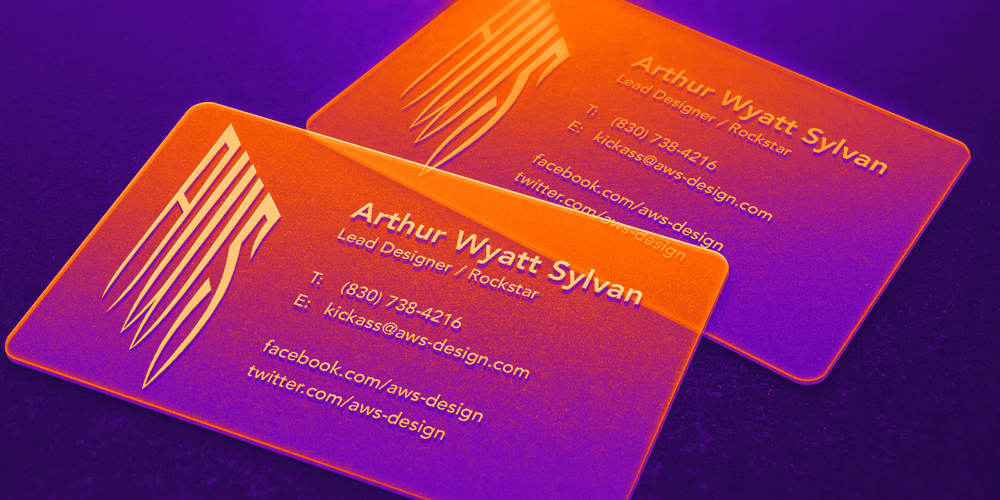
MFC Viper Monogram Font Family was designed by Brian J. Bonislawsky and published by Monogram Fonts Co.. MFC Viper Monogram contains 4 styles and family package options. The inspiration source for Viper Monogram is the 1934 Book of American Types by American Type Founders. Found in that specimen book, was a sophisticated two-color monogram design called Hollywood Combination Initials, which was available in limited size metal castings. This wonderful monogram style is now digitally recreated, revived, and updated for modern use! Viper Monogram supports one and two letter monograms, but due to its super condensed style works best for three letter monograms. The default typing style for Viper Monogram is an all horizontal all caps setup which can be used for headlines and titling. Type in Capitals for an outline effect, lowercase for a solid effect. By enabling OpenType Contextual Alternates, you can type diagonal top-aligned monograms up to three letters. By typing in all lowercase, and layer a copy of the lowercase with Stylistic Alternates enabled, you can create a two-color effect. Viper Monogram is available in Pro format Opentype fonts only due its unique setup. Download and view the MFC Viper Monogram Guidebook if you would like to learn a little more.